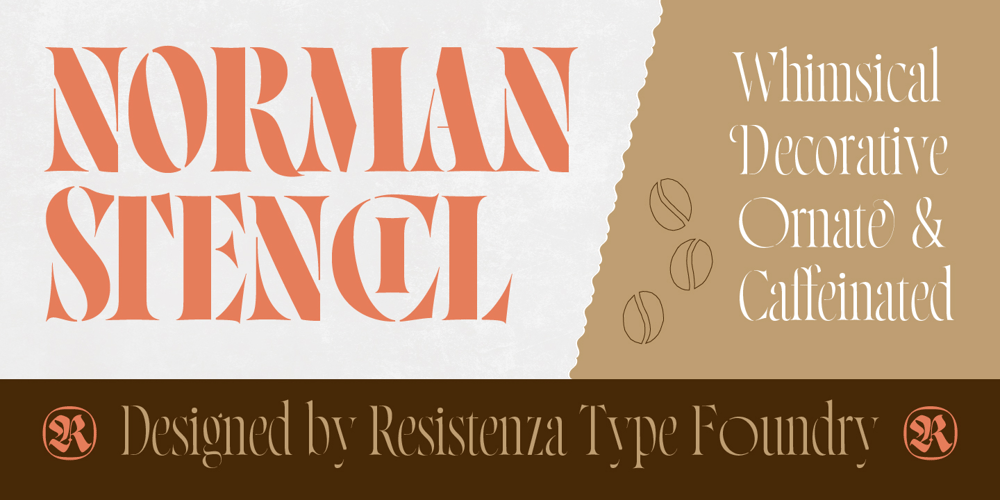
Norman Stencil Font Family was designed by Giuseppe Salerno, Paco González and published by Resistenza. Norman Stencil contains 8 styles and family package options. Norman Stencil, is a new Norman.An high contrast, serif and narrow font. 2 styles and 2 weights.Norman Stencil it works perfectly on big texts, logos, headline and others display purposes.Activate your opentype features and you will enjoy all the ligatures and alternates.